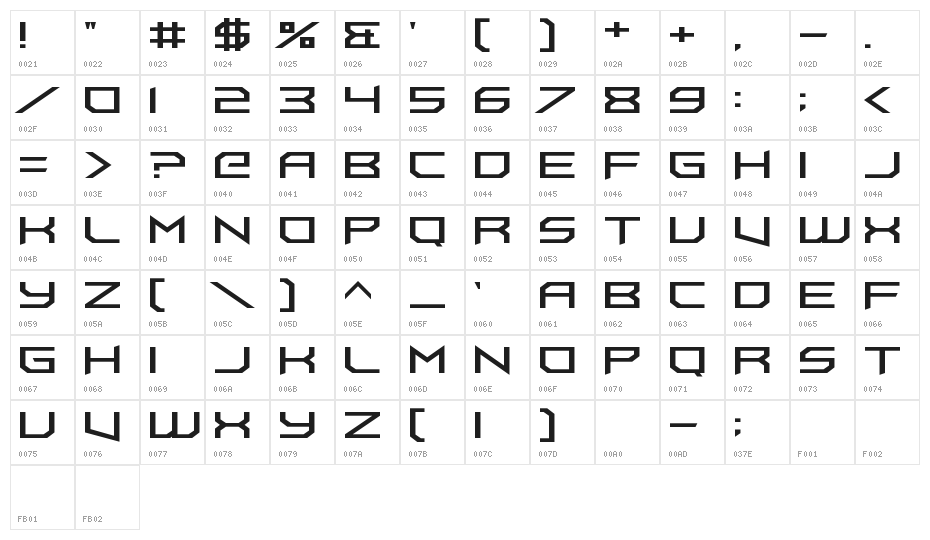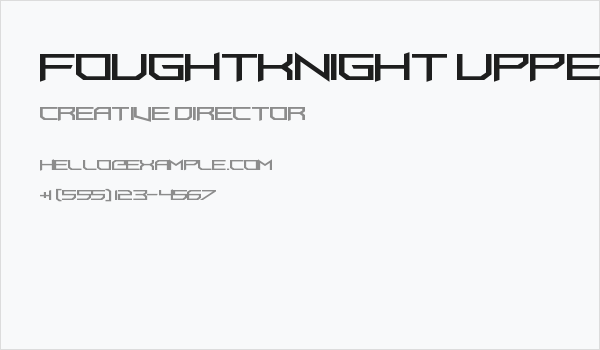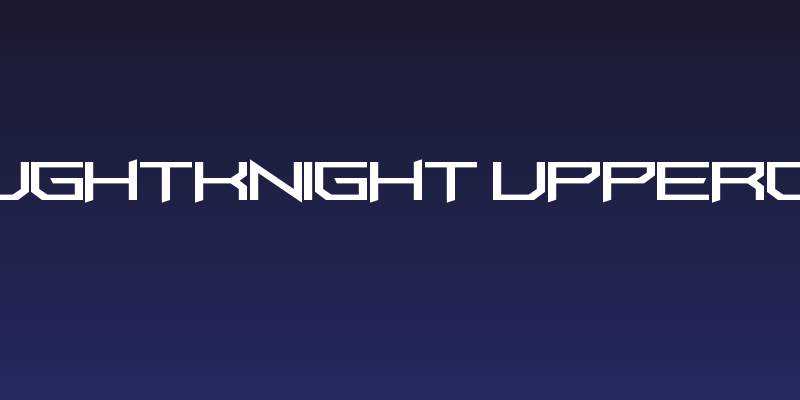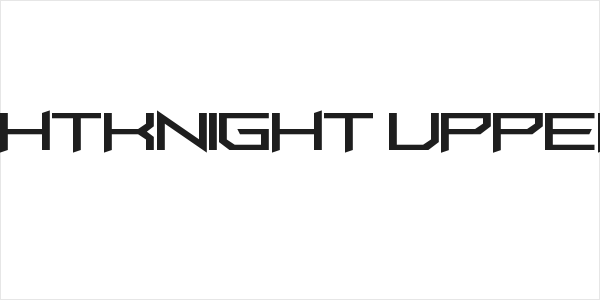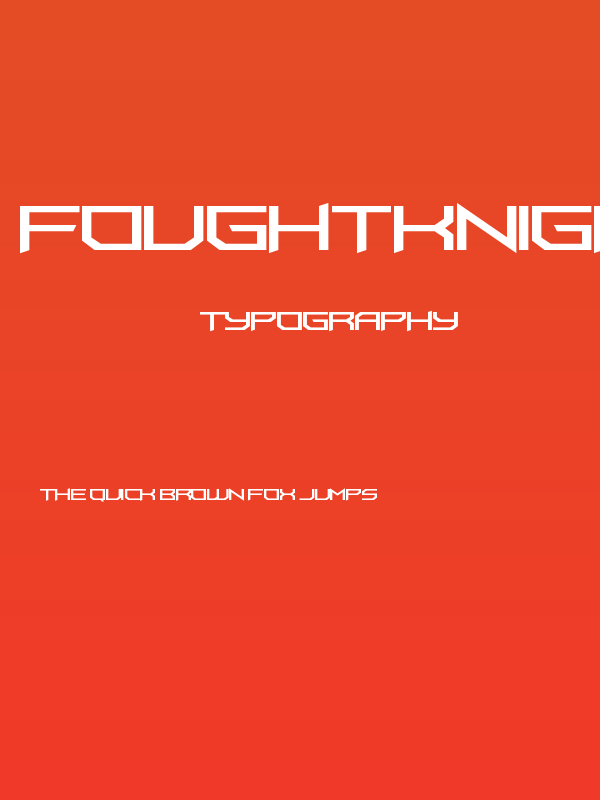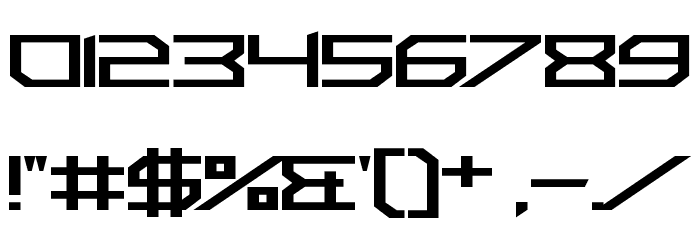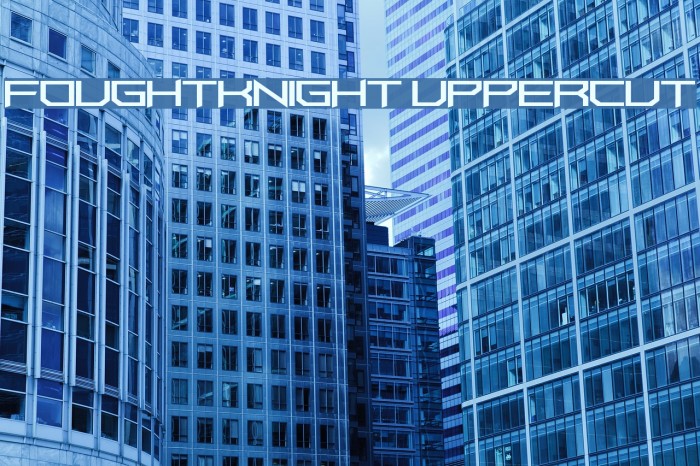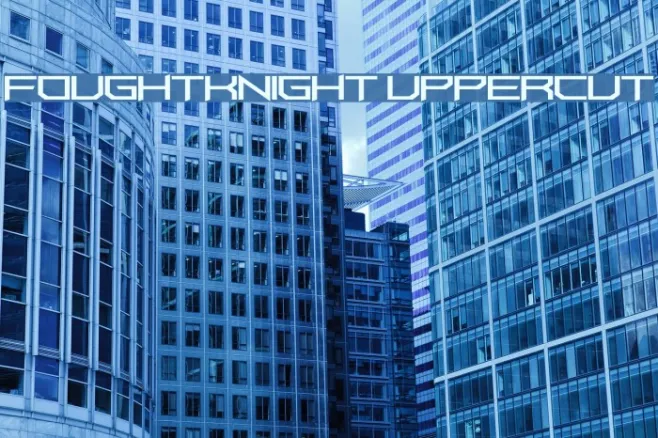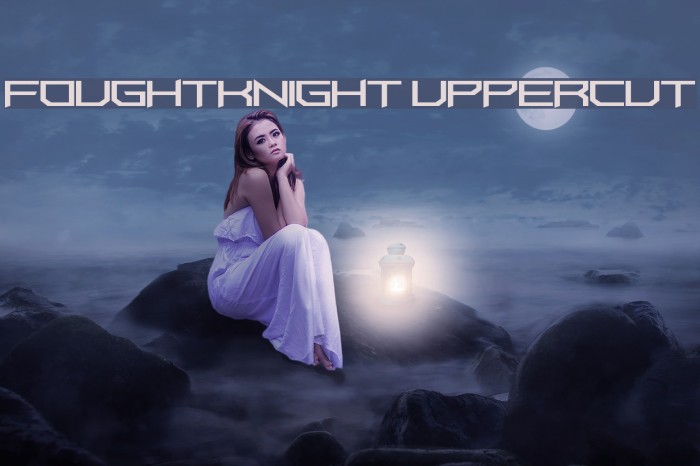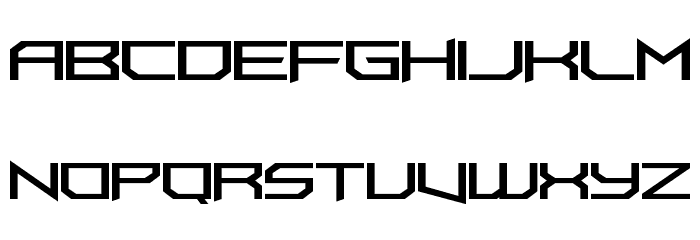
FoughtKnight UpperCut Font
FoughtKnight UpperCut Description
This font features a bold, geometric design with sharp angles and a futuristic aesthetic. The characters are constructed with clean lines and a consistent stroke width, giving it a modern and technical appearance. The uppercase and lowercase letters maintain a uniform style, with distinct angular cuts that create a sense of movement and dynamism. The numerals and special characters are designed to complement the alphabet, maintaining the same geometric structure. This font is highly legible and makes a strong visual impact, suitable for projects that require a contemporary and edgy look.
| Proposed Projects | Ideal for technology branding, video game titles, sci-fi movie posters, and modern digital interfaces. |